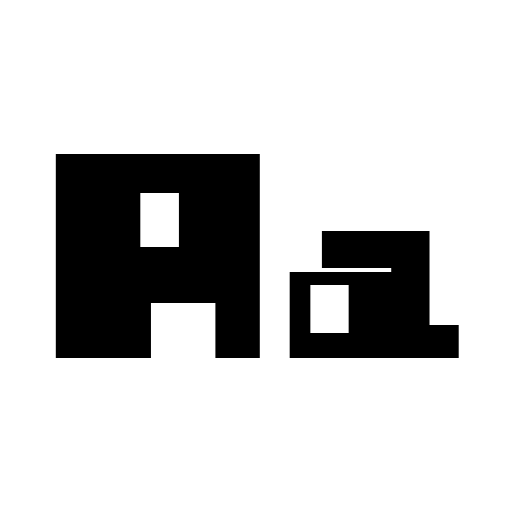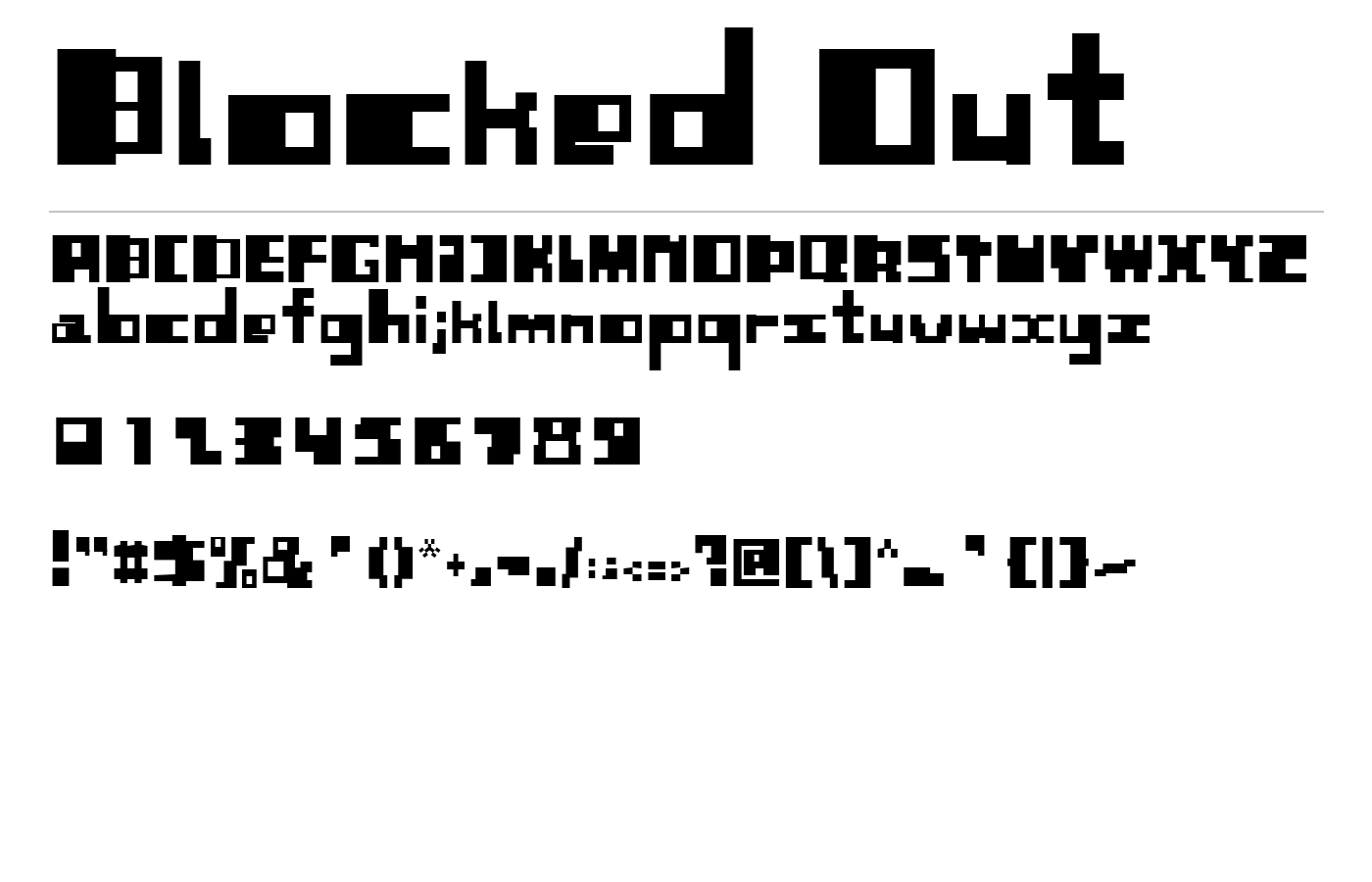
Blocked Out Font is a bold, geometric sans serif with a distinctive pixelated, blocky style that evokes a retro, digital feel. Its heavy weight and squared shapes make it ideal for attention-grabbing headlines, logos, and designs seeking a tech-inspired or vintage arcade aesthetic. This font works best in display uses where its strong, unconventional character can stand out in creative branding and poster design.
Blocked Out Font
About Blocked Out Font